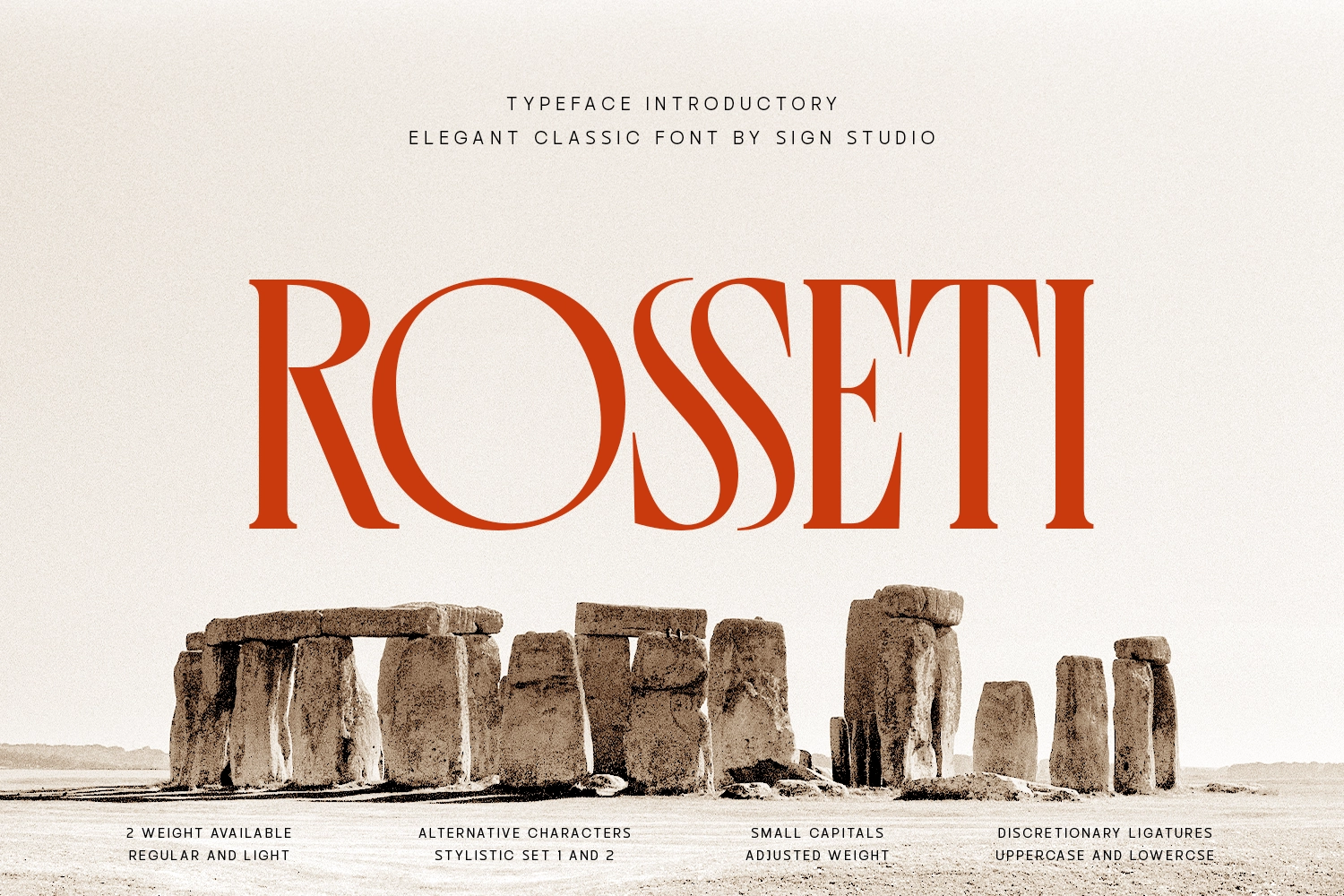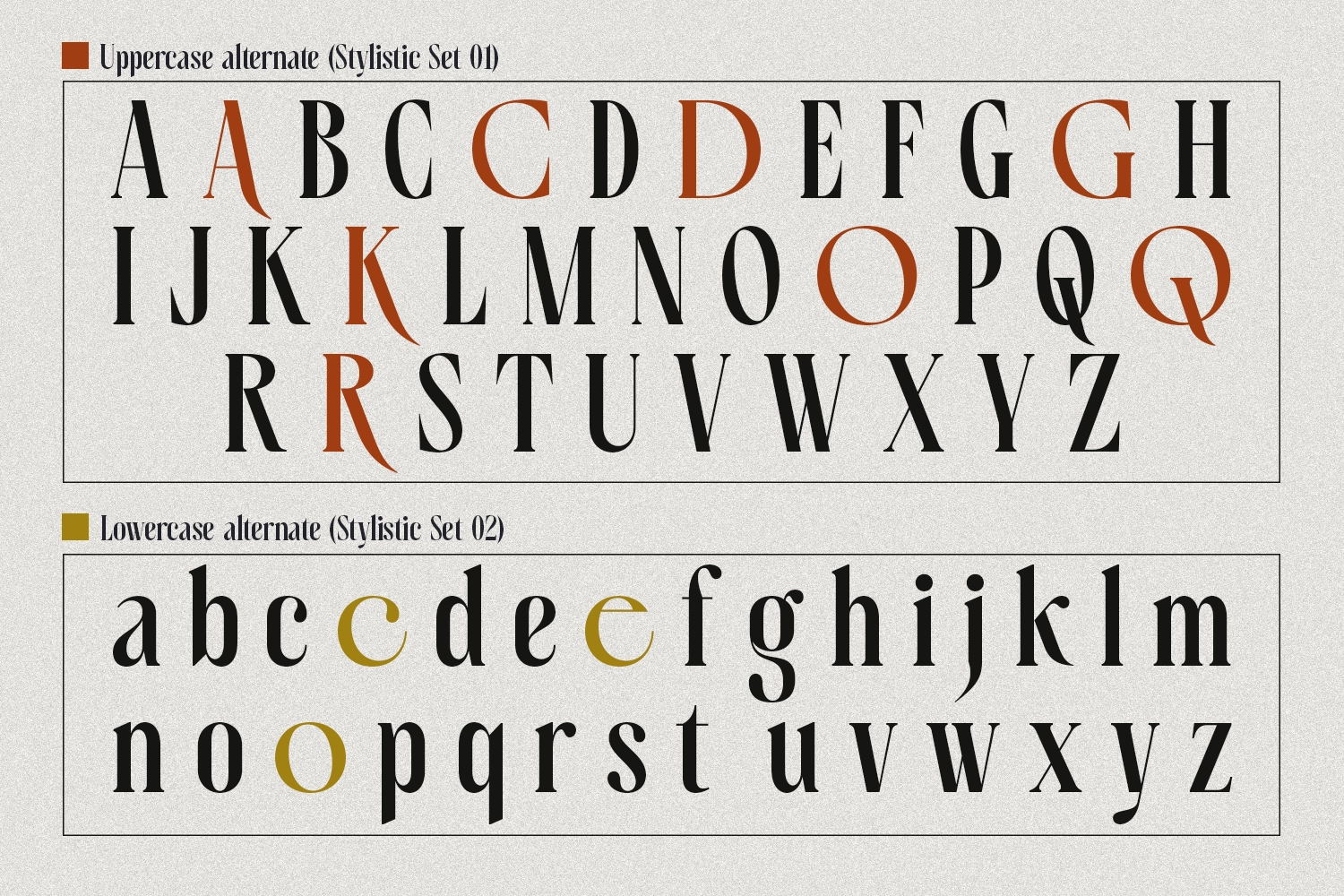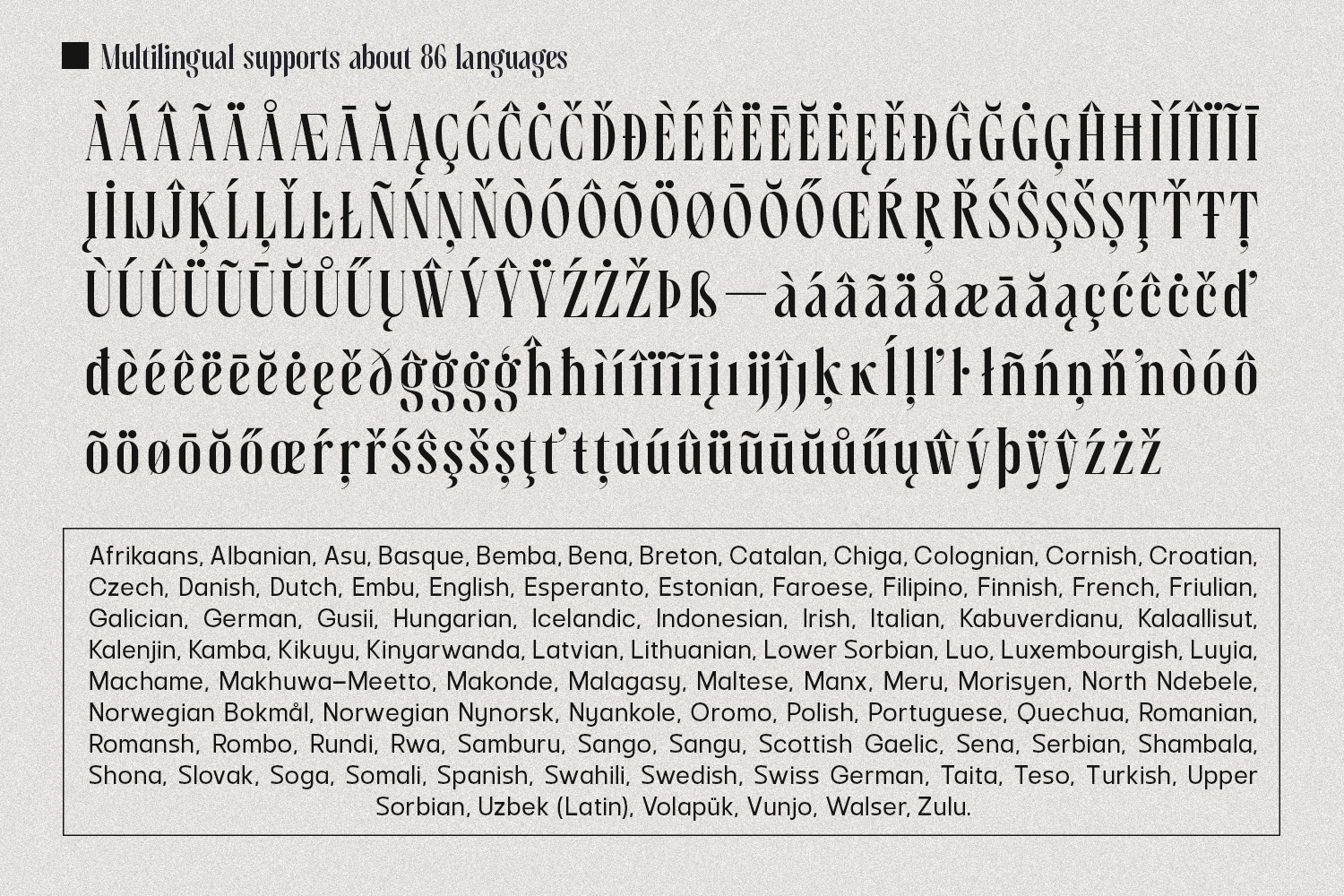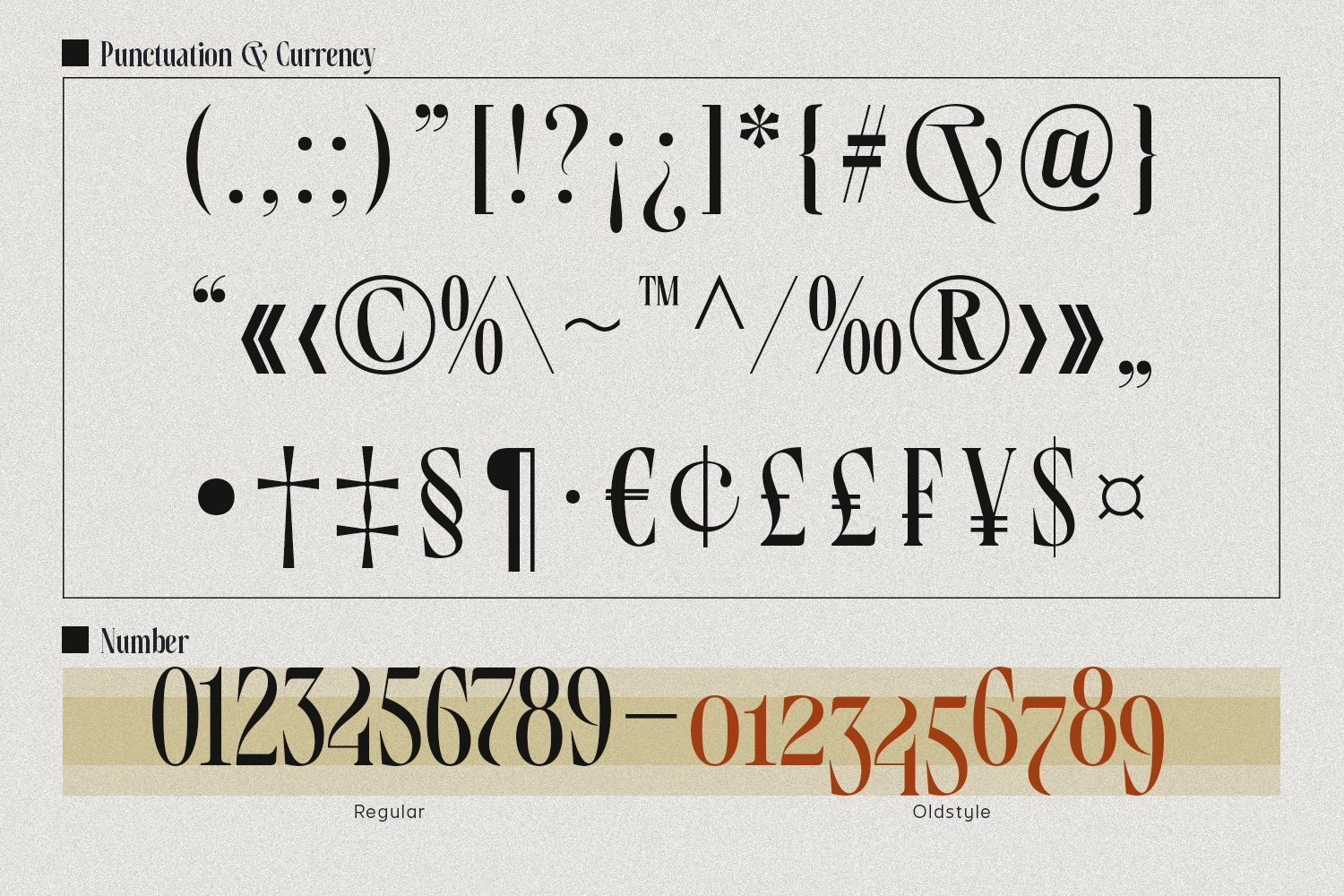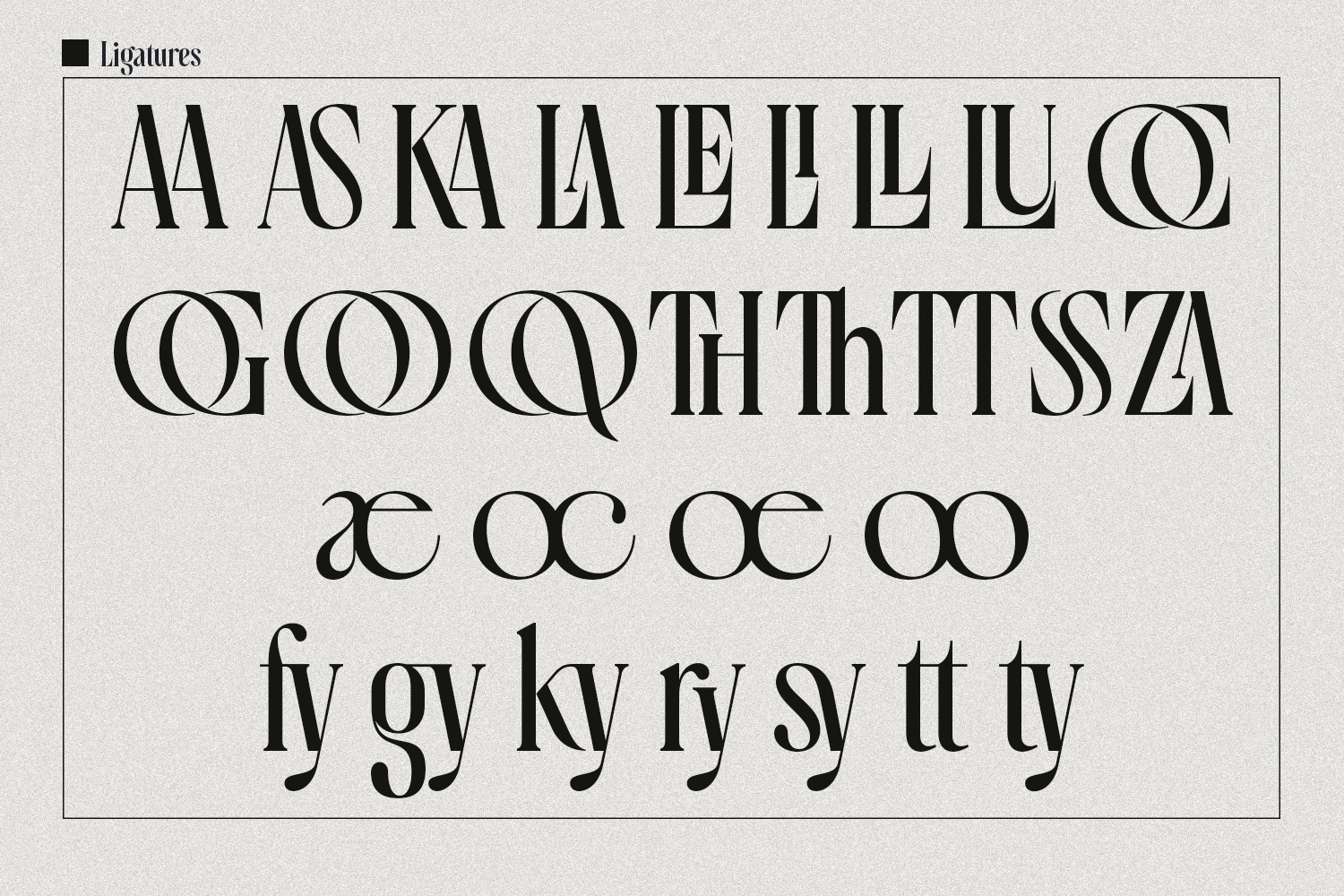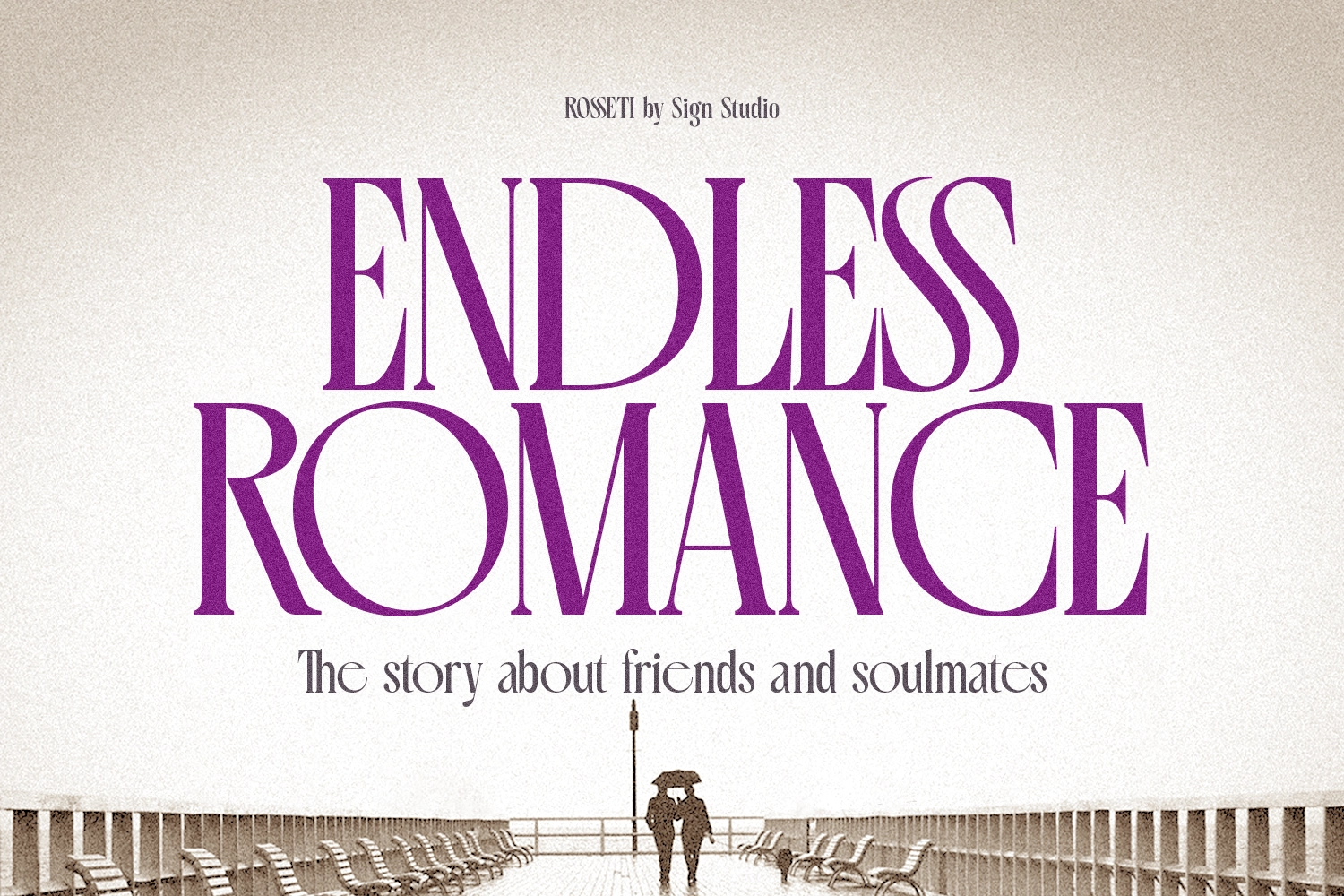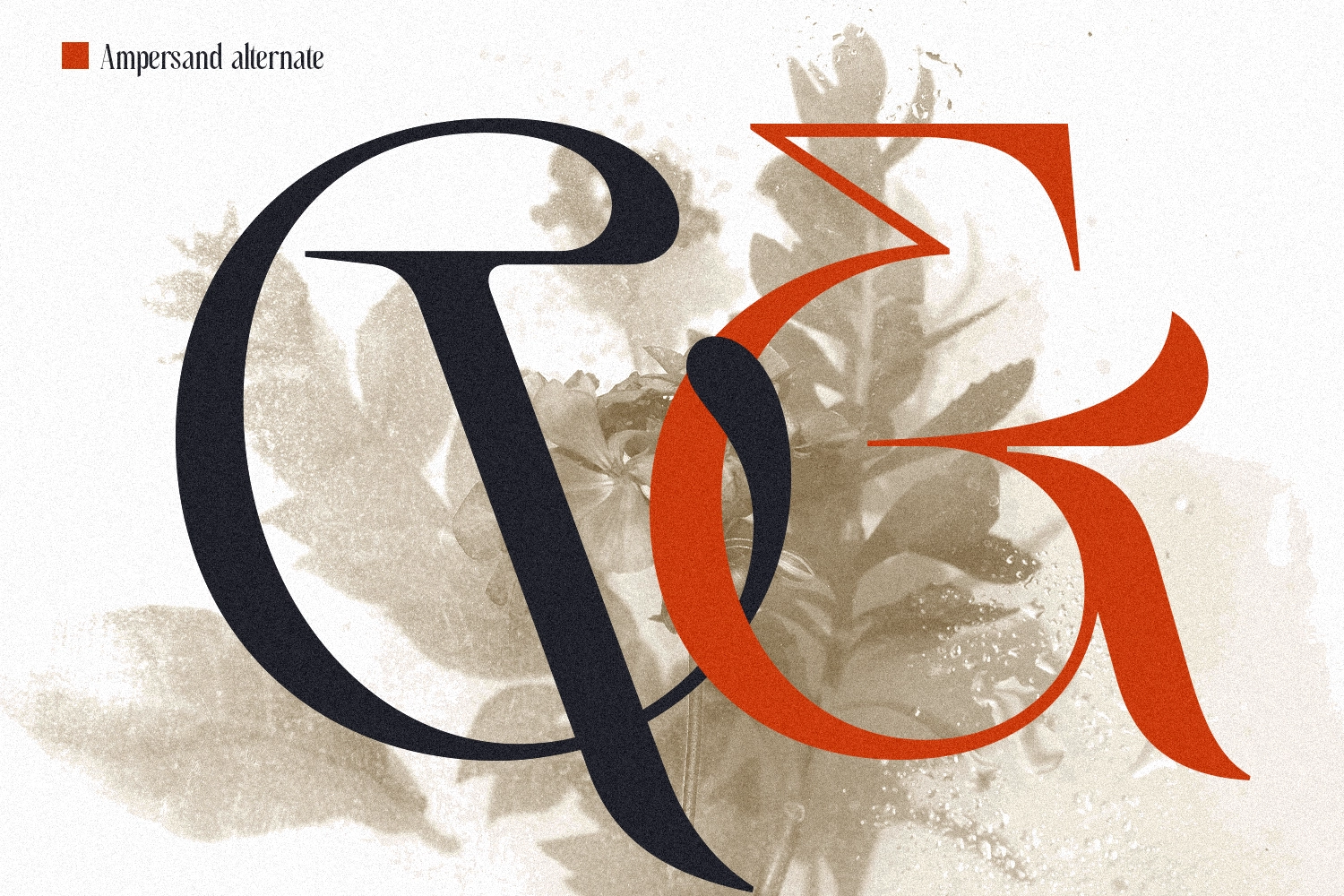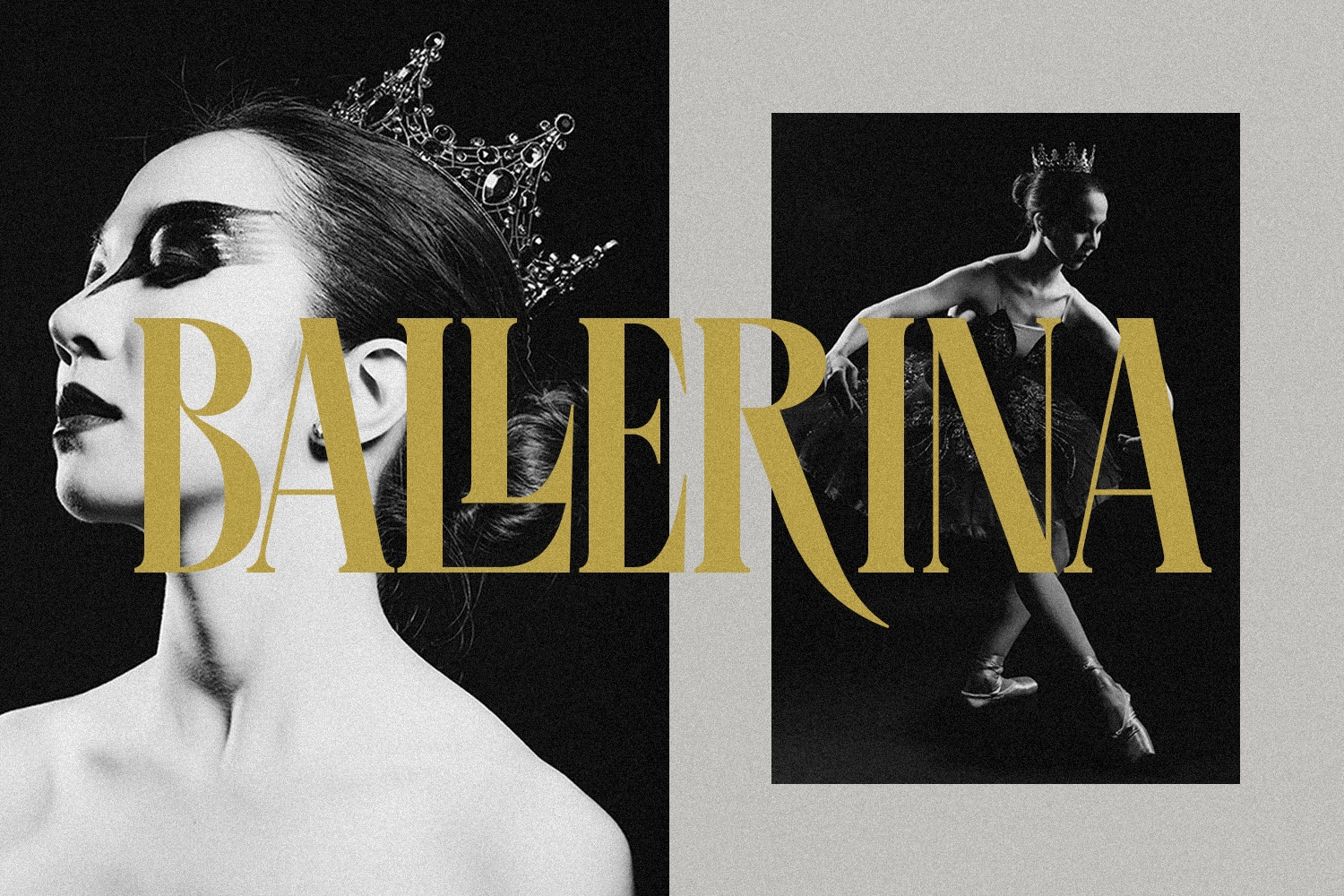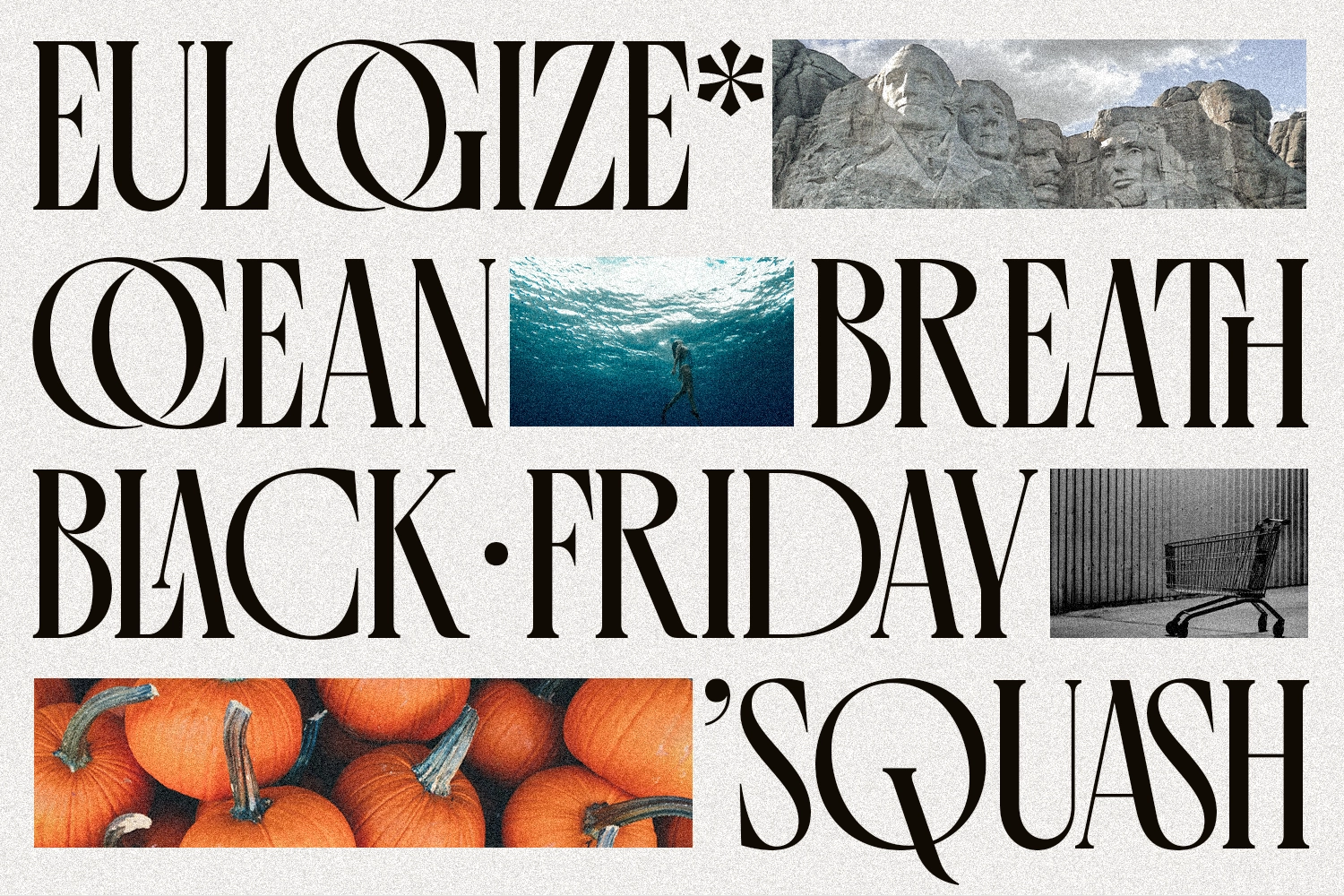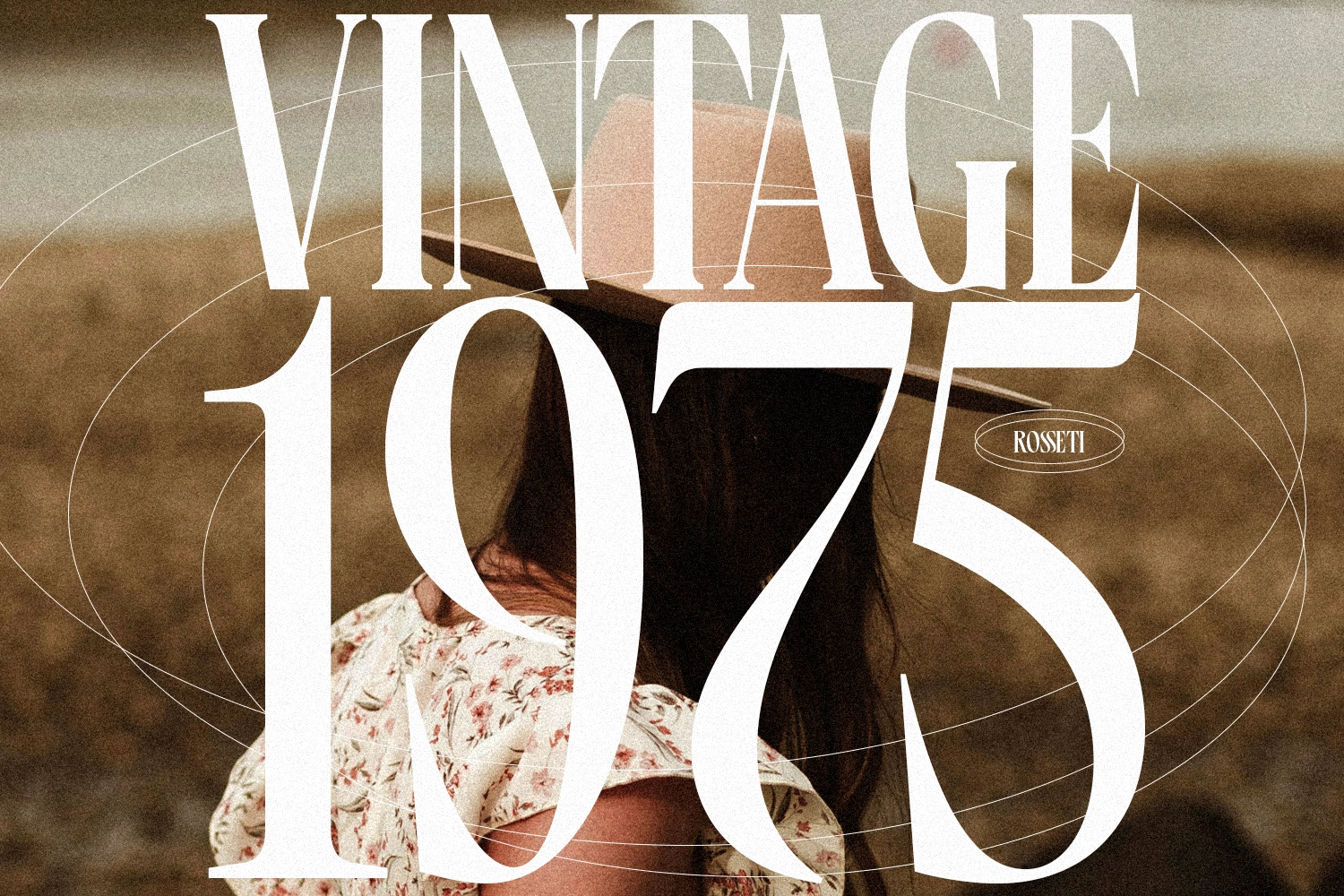
Rosseti - Elegant Classic Serif Font
This serif typeface is shaped for elegant layouts that need contrast, poise, and a clear editorial voice. Tall proportions, fine hairlines, and sculpted curves give it a polished look that suits fashion branding, magazine headlines, cosmetic packaging, wedding stationery, luxury logos, restaurant menus, book covers, posters, social media quotes, and more.
Rosseti carries a classic rhythm with a slightly nostalgic edge, so the letters look composed without turning flat or cold. The Regular and Light styles help set clean hierarchy, while alternates, ligatures, small capitals, and oldstyle figures give designers sharper control for identity systems, lookbooks, campaign visuals, certificates, labels, and refined presentation pages.
- Standard & discretionary ligatures
- Alternate characters
- Stylistic sets
- Small caps
- Oldstyle figures